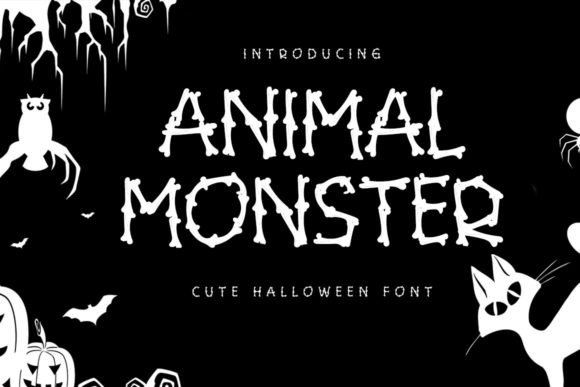
Embark on a spine-tingling adventure with the Animal Monster Font, a decorative typeface that conjures up images of haunted houses and eerie graveyards. Its spooky and playful characters are perfect for adding a touch of whimsy to your creative projects.
Unleash your imagination and let the Animal Monster Font bring your Halloween storybooks to life. Create spine-chilling scenes and spooky characters that will keep readers on the edge of their seats. Let the font's unique shapes and curves add depth and texture to your designs, making them truly unforgettable.
Take your product packaging to the next level of spookiness with the Animal Monster Font. Design labels and boxes that will make your products stand out from the crowd. The font's playful yet eerie style will capture customers' attention and leave a lasting impression.
If you're looking to add a touch of fun and spookiness to your children-related designs, the Animal Monster Font is the perfect choice. Create invitations for Halloween parties, design posters for haunted houses, or make custom t-shirts for trick-or-treaters. The font's playful and creative characters will delight children of all ages.
The Animal Monster Font is a versatile font that can be used for a wide range of projects. Its unique and eye-catching style will add a touch of spookiness and creativity to any design. Download the Animal Monster Font today and let your imagination run wild!